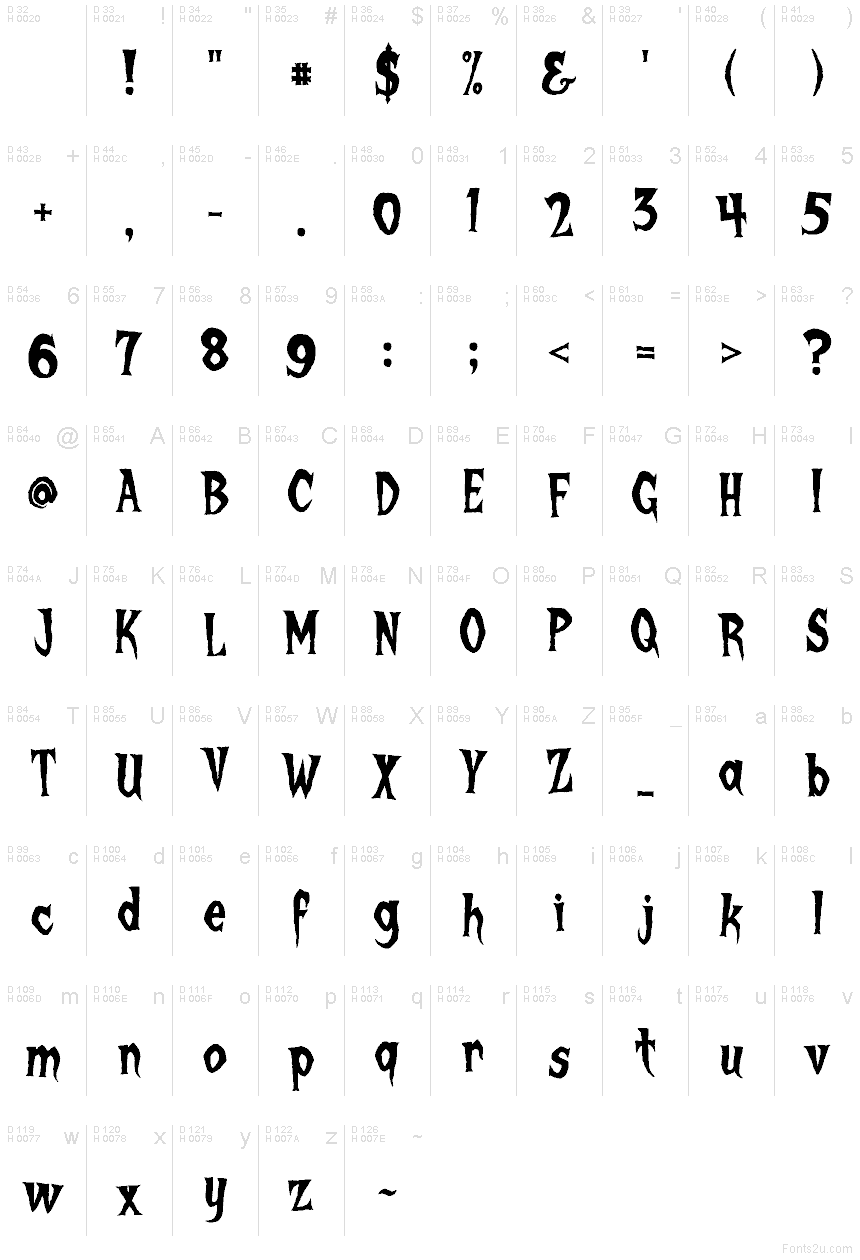
Haunted Hill Spooky Spooky
Haunted Hill Spooky Spooky font by Sinister Fonts is a free bold scary display font built for jump-scare headlines and creepy title cards. Hand‑lettered with ragged, inky edges, it staggers along a wonky baseline and flares into claw‑like terminals, giving it that vintage trailer chill without feeling cartoony. As part of the Haunted Hill family, its high-contrast strokes and uneven rhythm deliver instant atmosphere the moment it hits the page.
Using Haunted Hill Spooky Spooky, your horror posters, Halloween flyers, haunted‑house signage, escape‑room branding, thriller book covers, and YouTube thumbnails will read loud and eerie from a distance. Set it big, give it a touch of extra tracking, and let the jagged silhouettes breathe; pair with a clean condensed sans for body text to keep the scares legible. This free font shines on dark backgrounds, where those ink‑blot edges glow like candlelight.